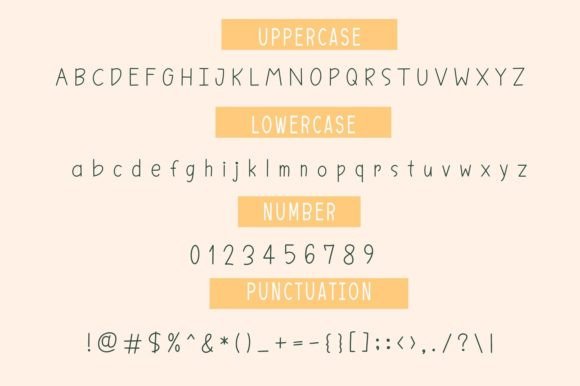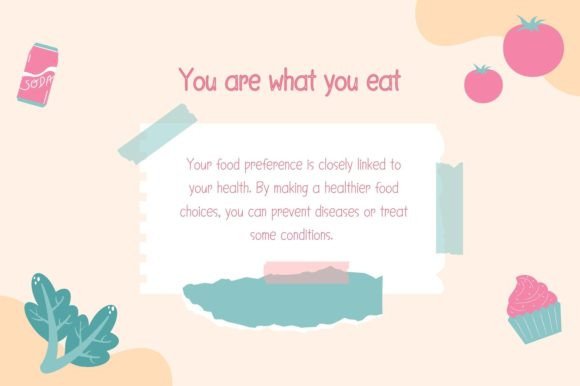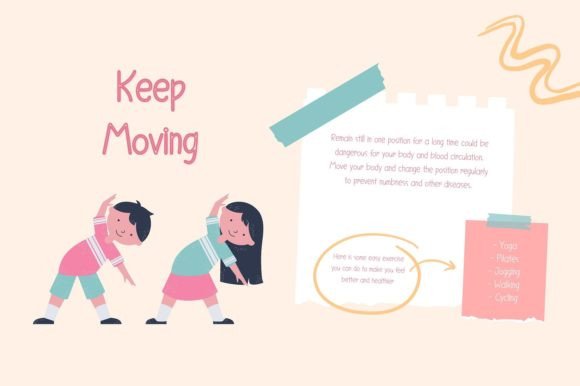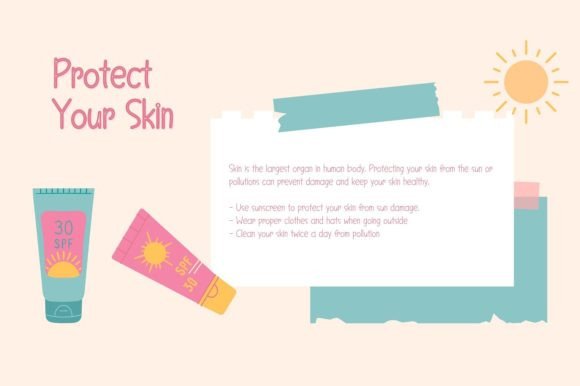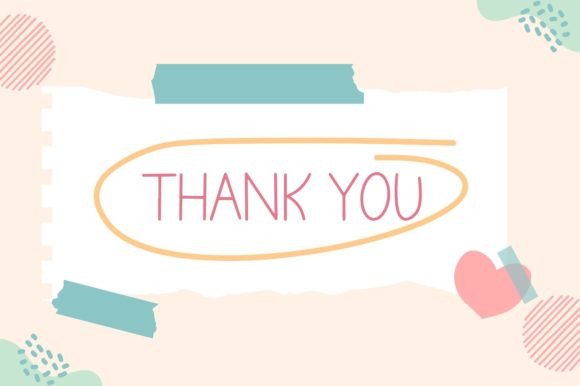
Introduction to Mackenzie Font
Mackenzie is a cute and fun handwritten font.
The lightness of its characters makes it suitable for a wide range of design projects It embodies playfulness and authenticity and is the perfect choice for all your favorite projects.
Key Features of Mackenzie Font
Why Choose Mackenzie Font?